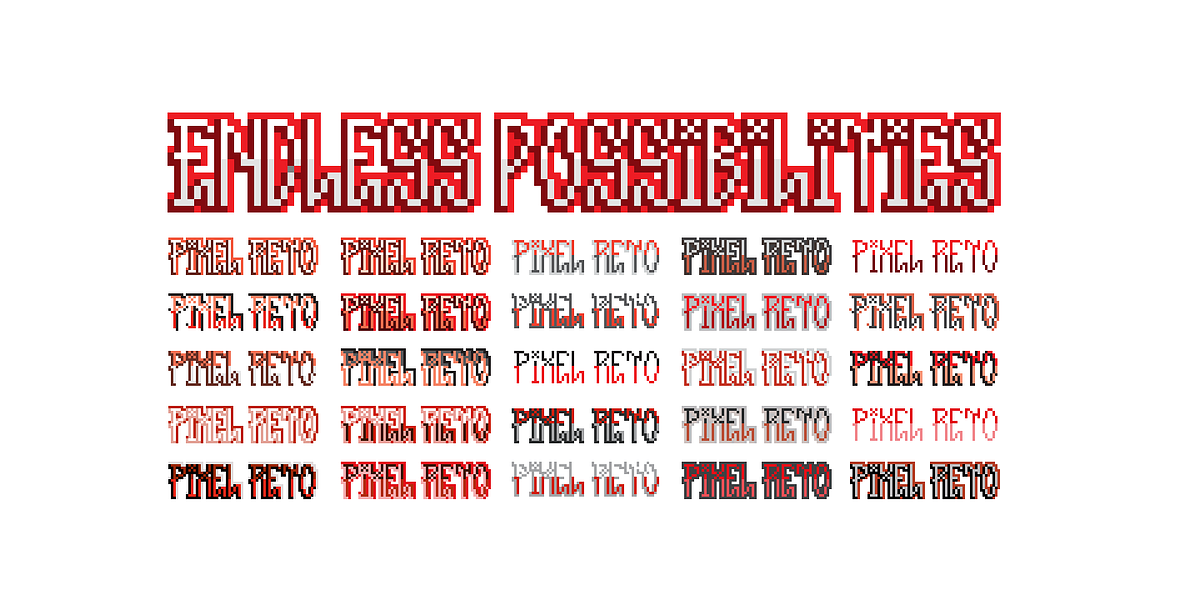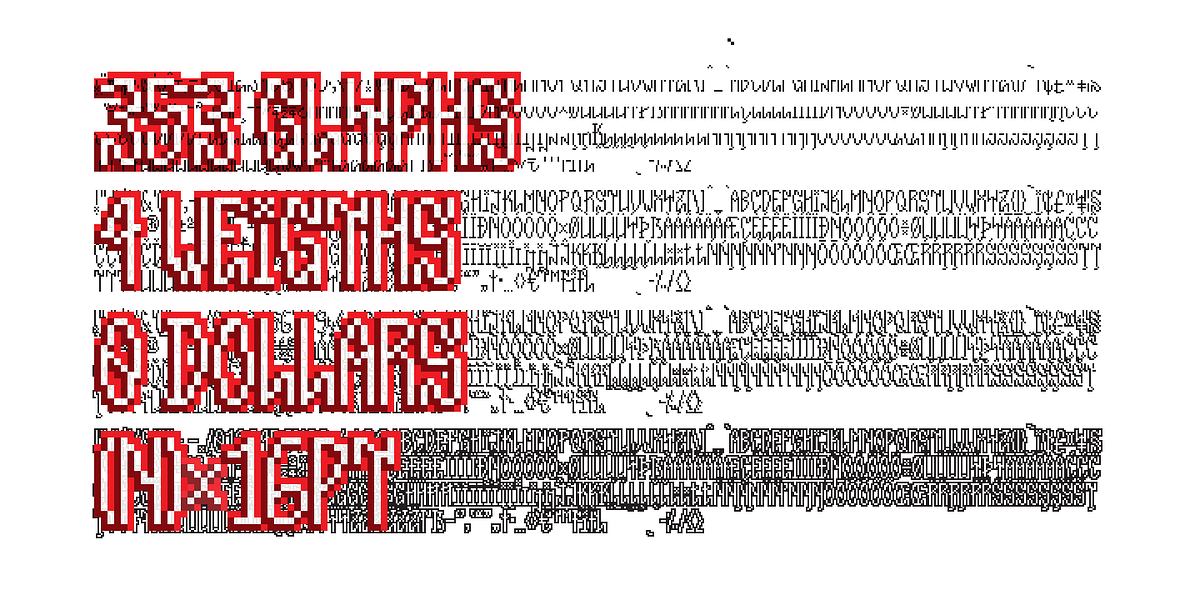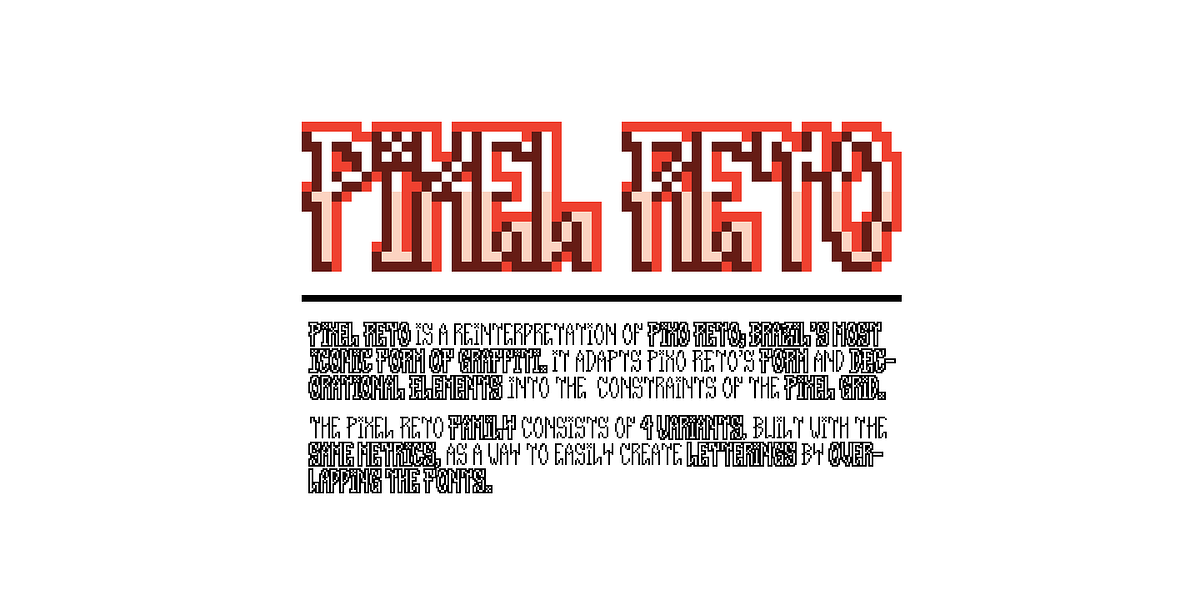
Pixel Reto
Pixel Reto is a pixel font family designed to evoke the aesthetic of Brazilian graffiti. It features a bold, playful style with outlined and layered characters, creating a distinctive retro look. The font is optimized for pixel grid displays and should be used in sizes that are multiples of 16 pixels.